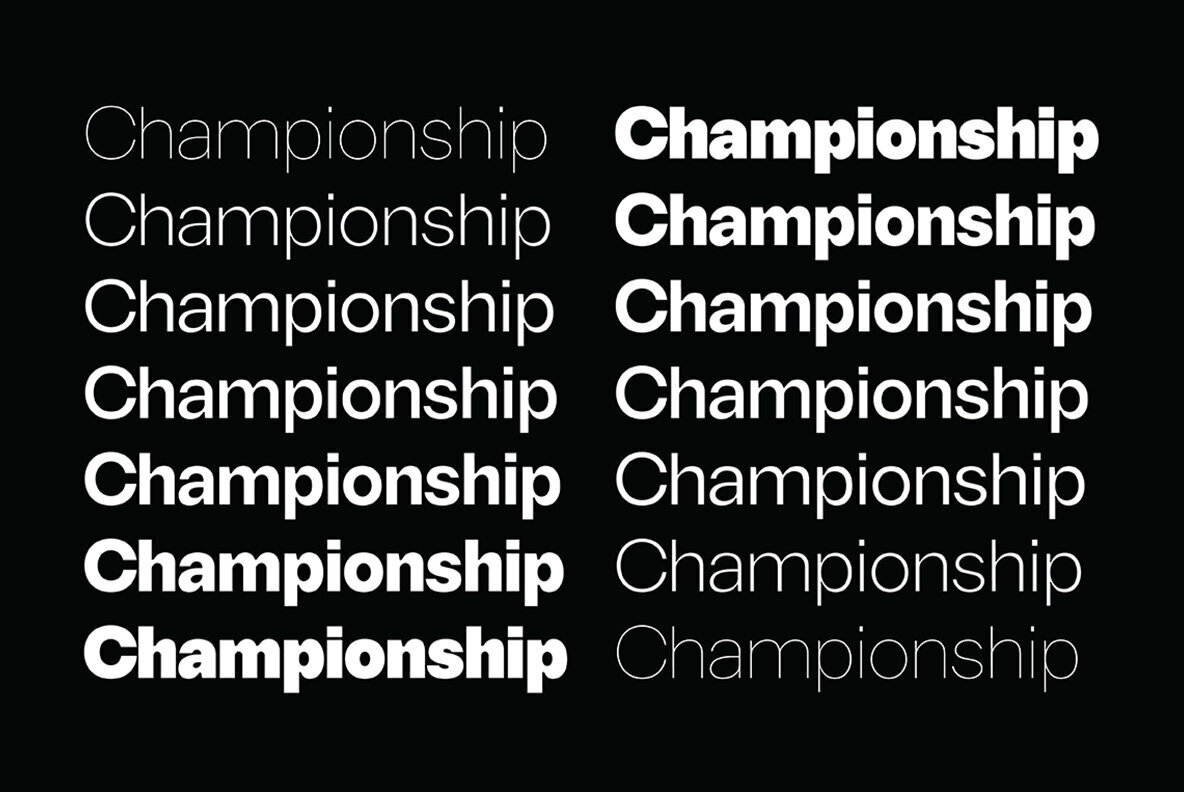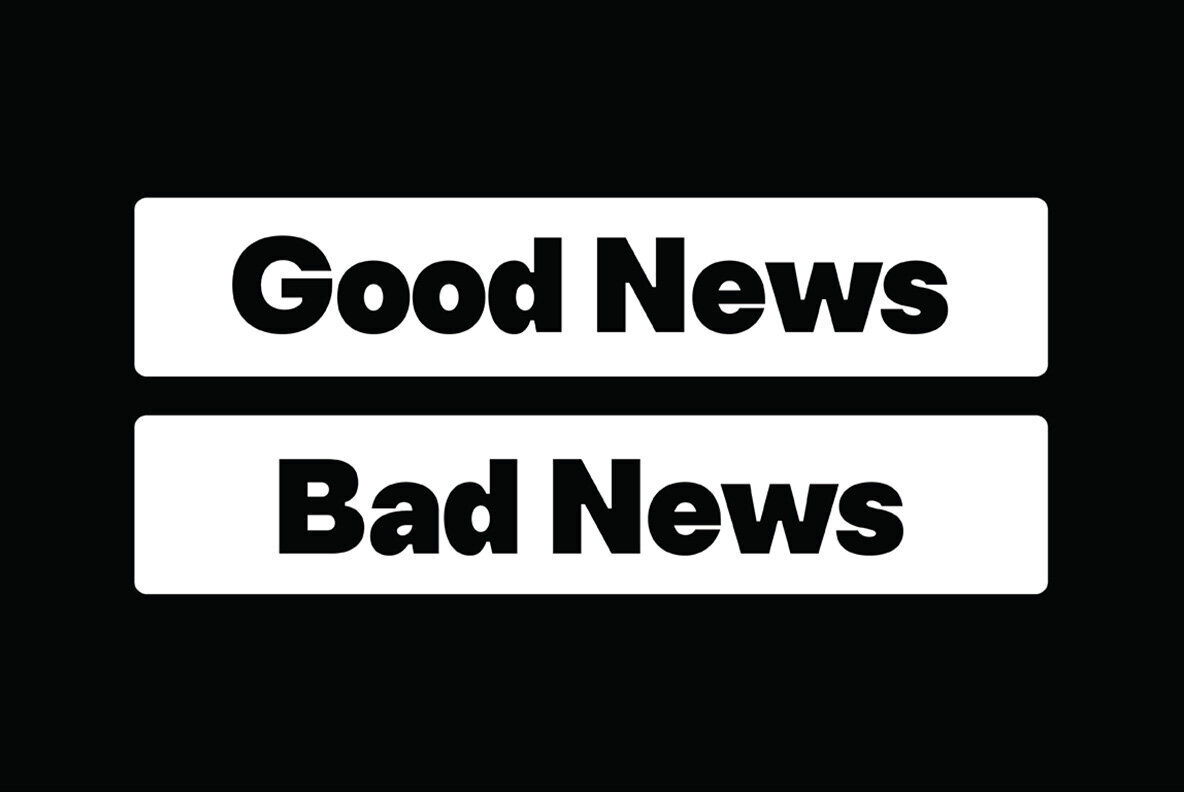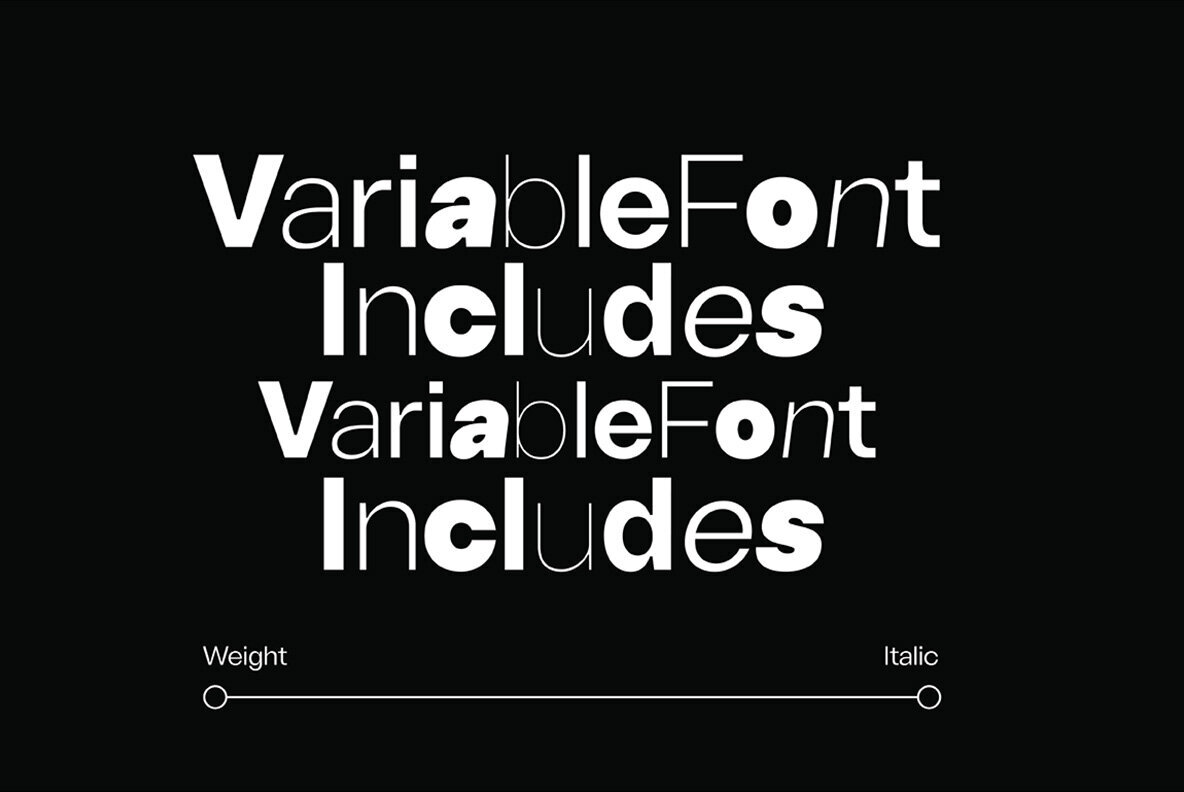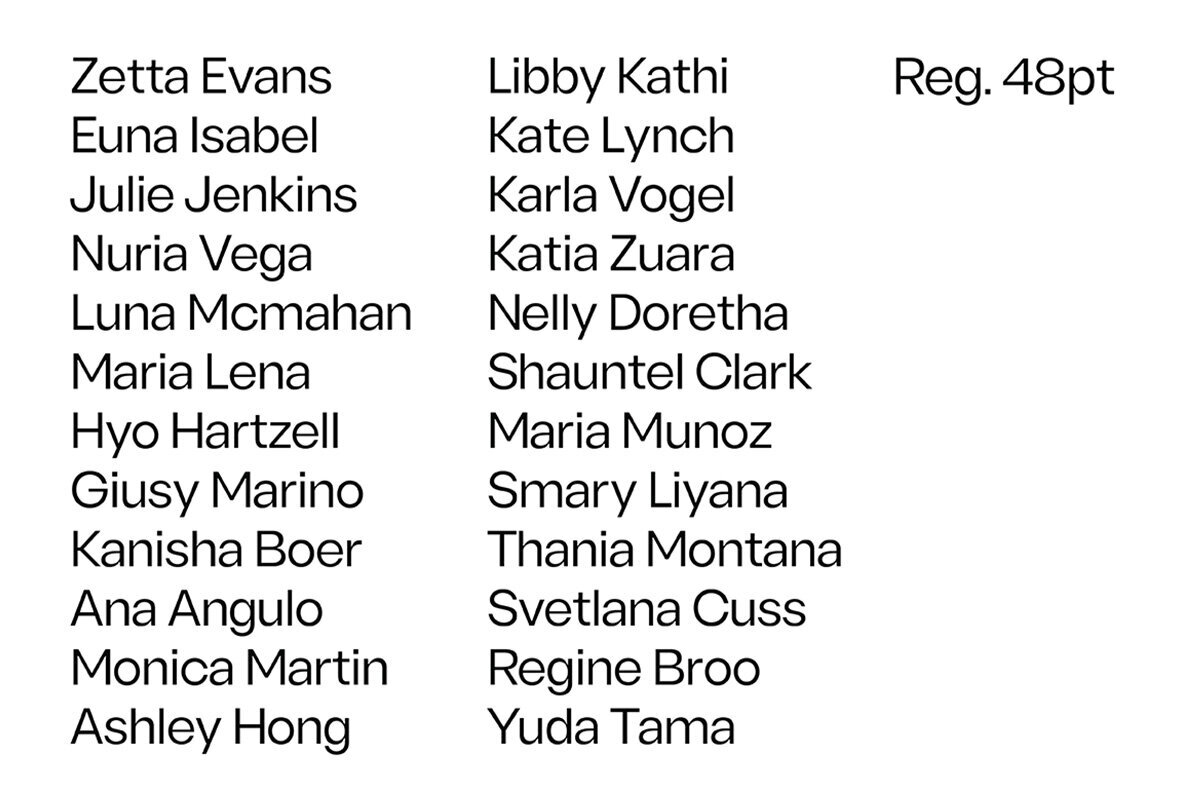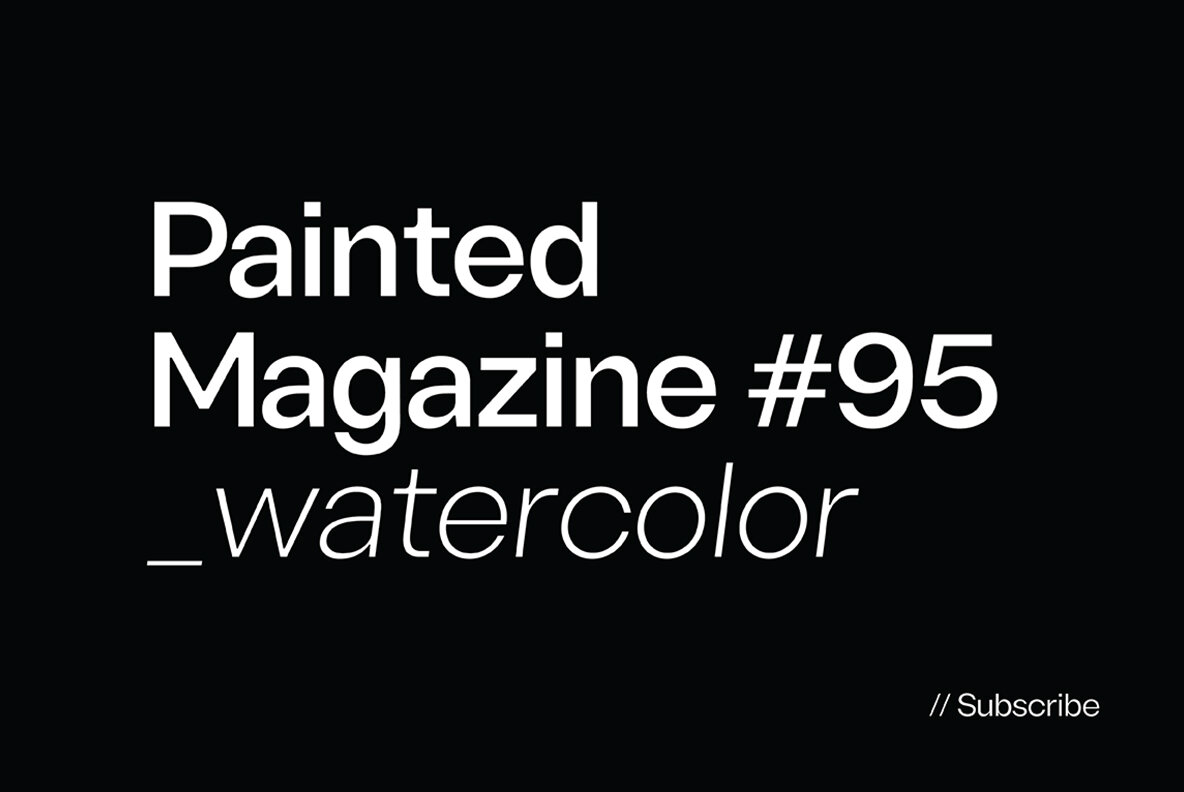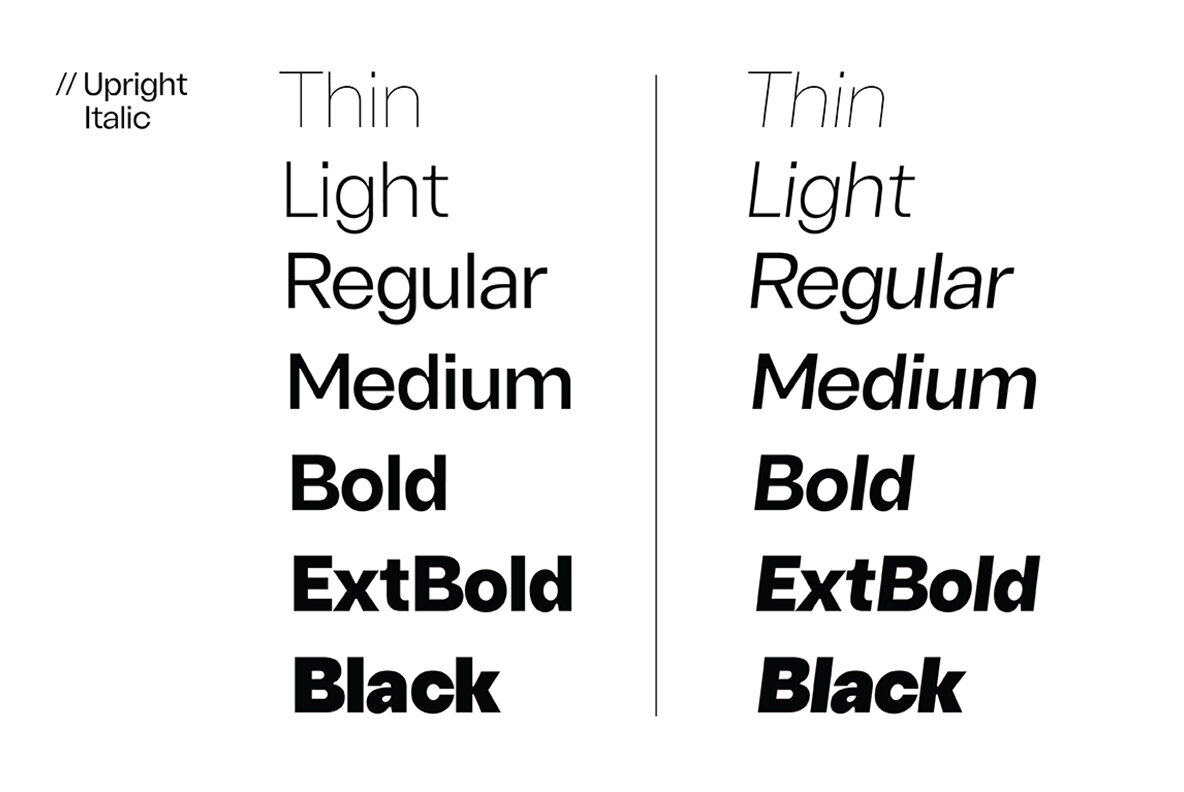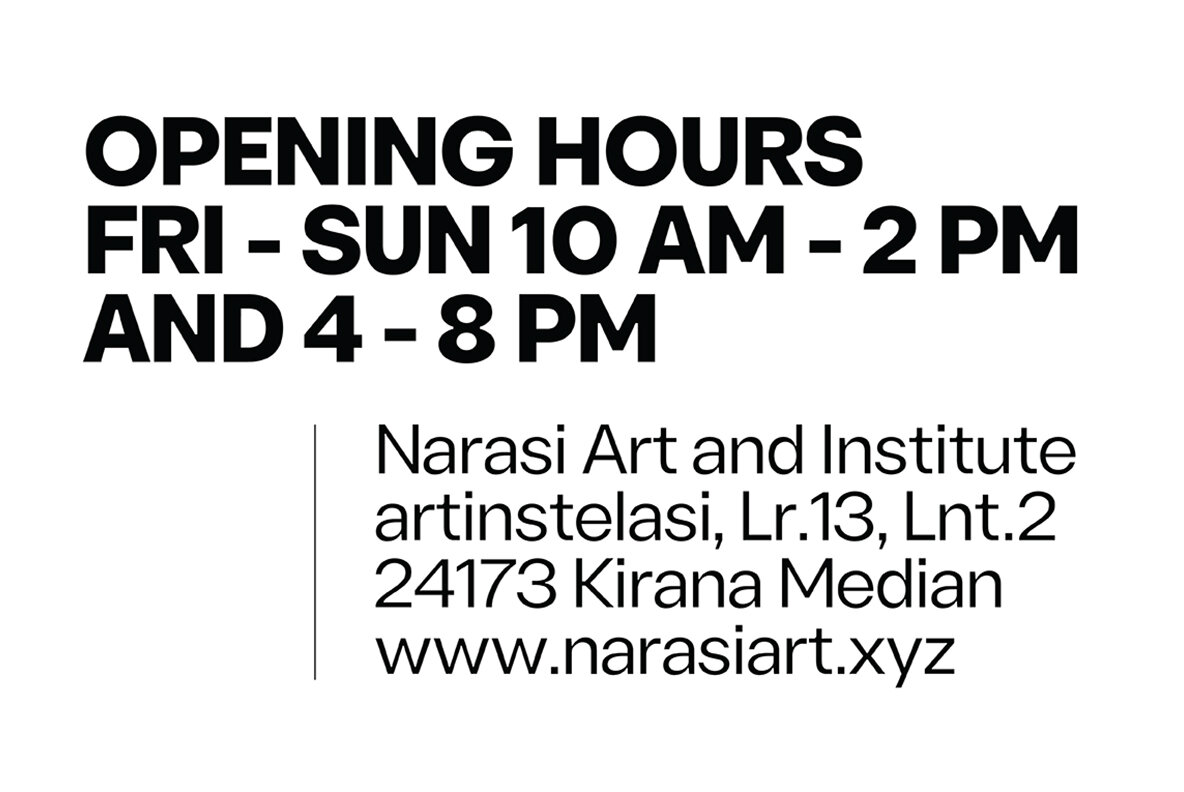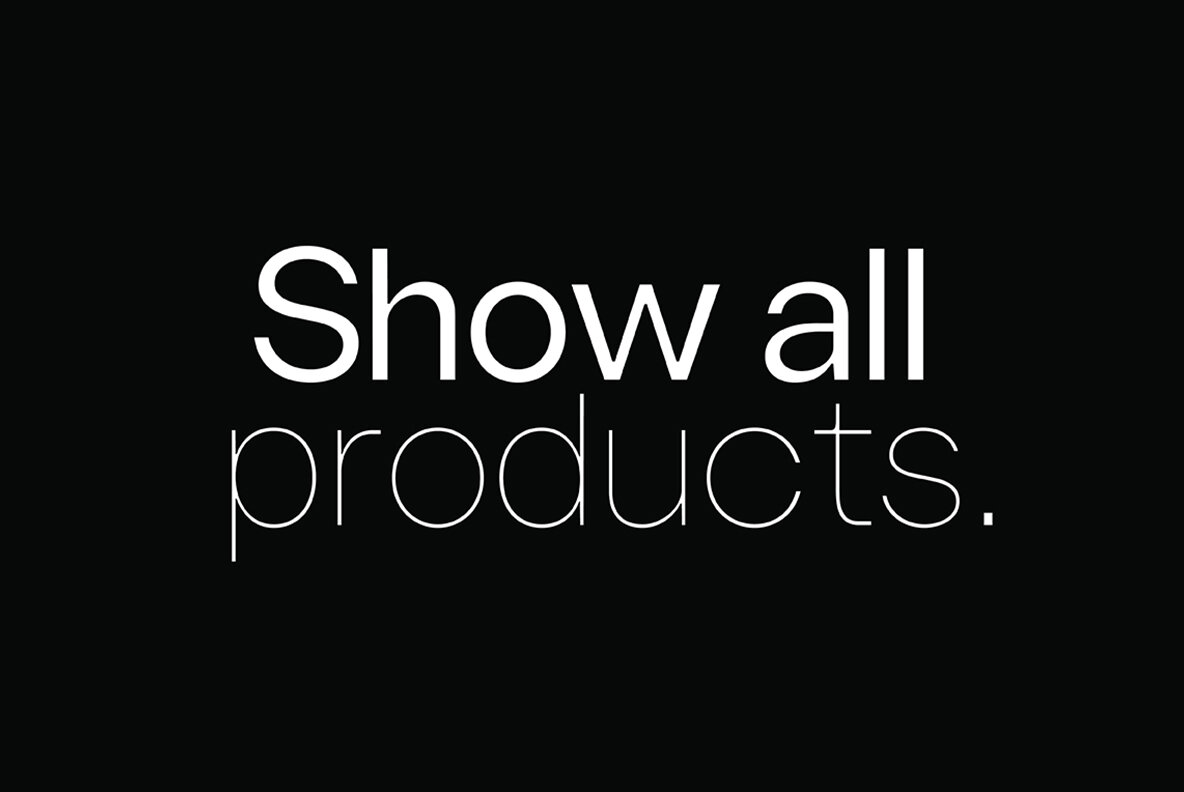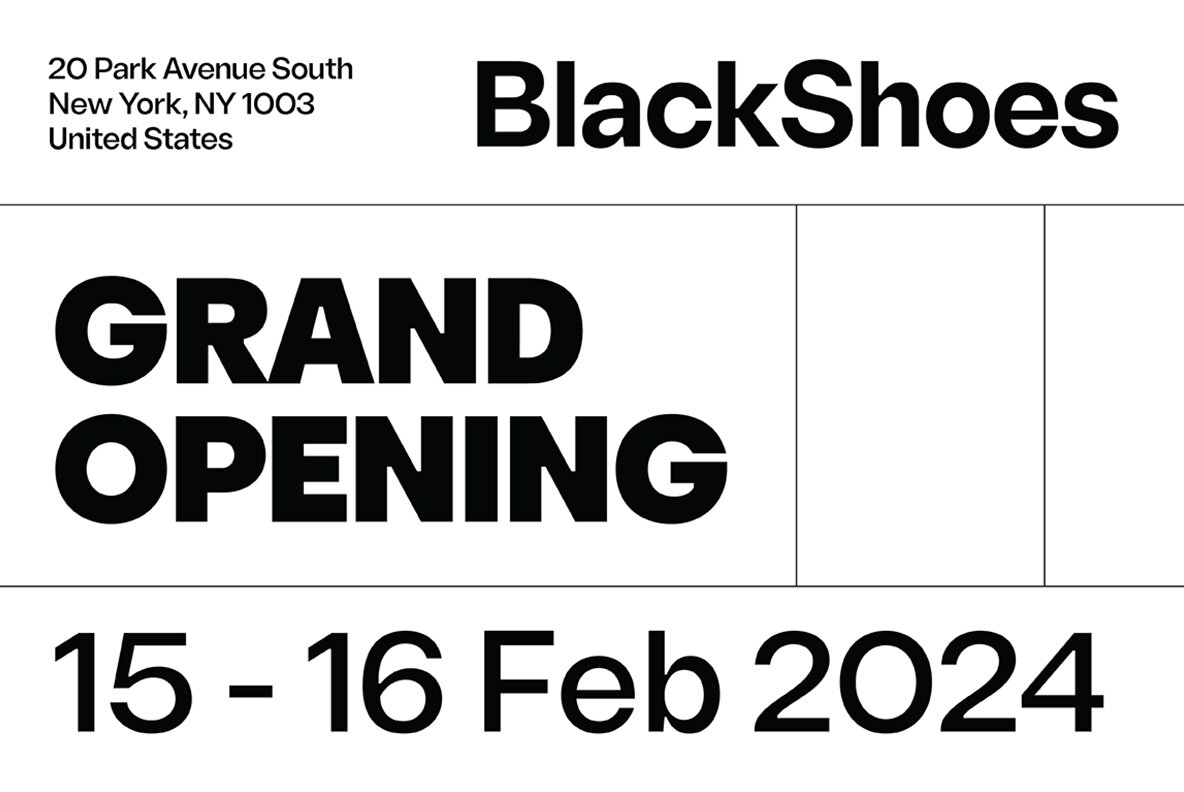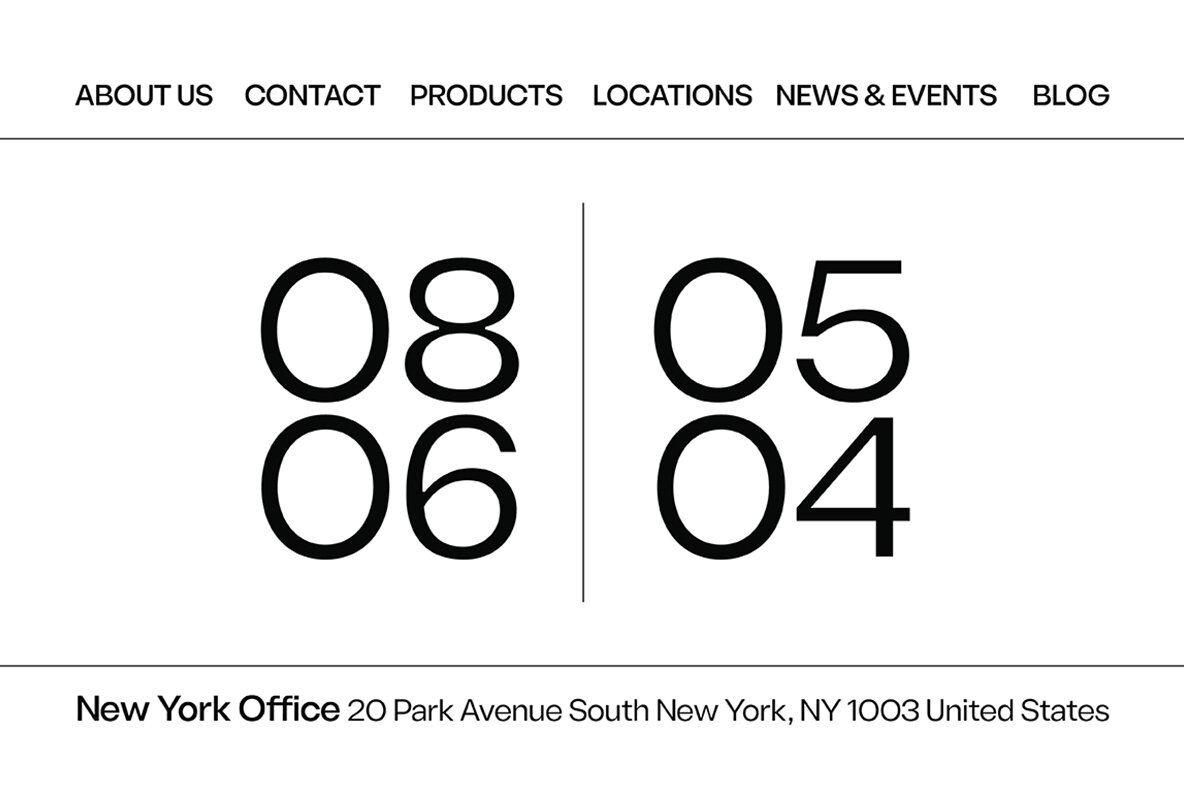
Sherika Font
Sherika is a font that will make your designs stand out with its cool and authentic feel. It contains seven weights, plus matching italics that give it more depth. The simple geometry of Sherika highlights each letter's shape for added effect - no matter what type project you're working on!
- 14 styles: 7 uprights and matching italics.
- 232 glyphs.
- Latin based languages.
- OpenType features, including ligatures.